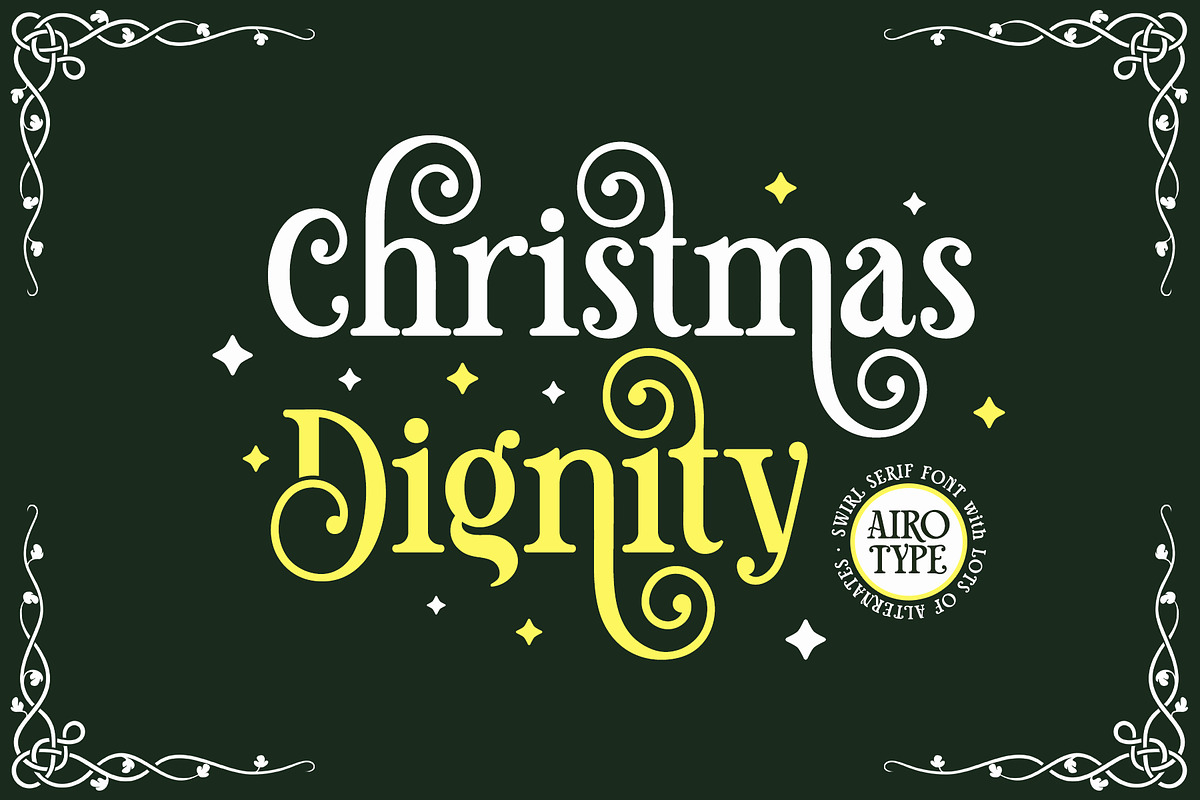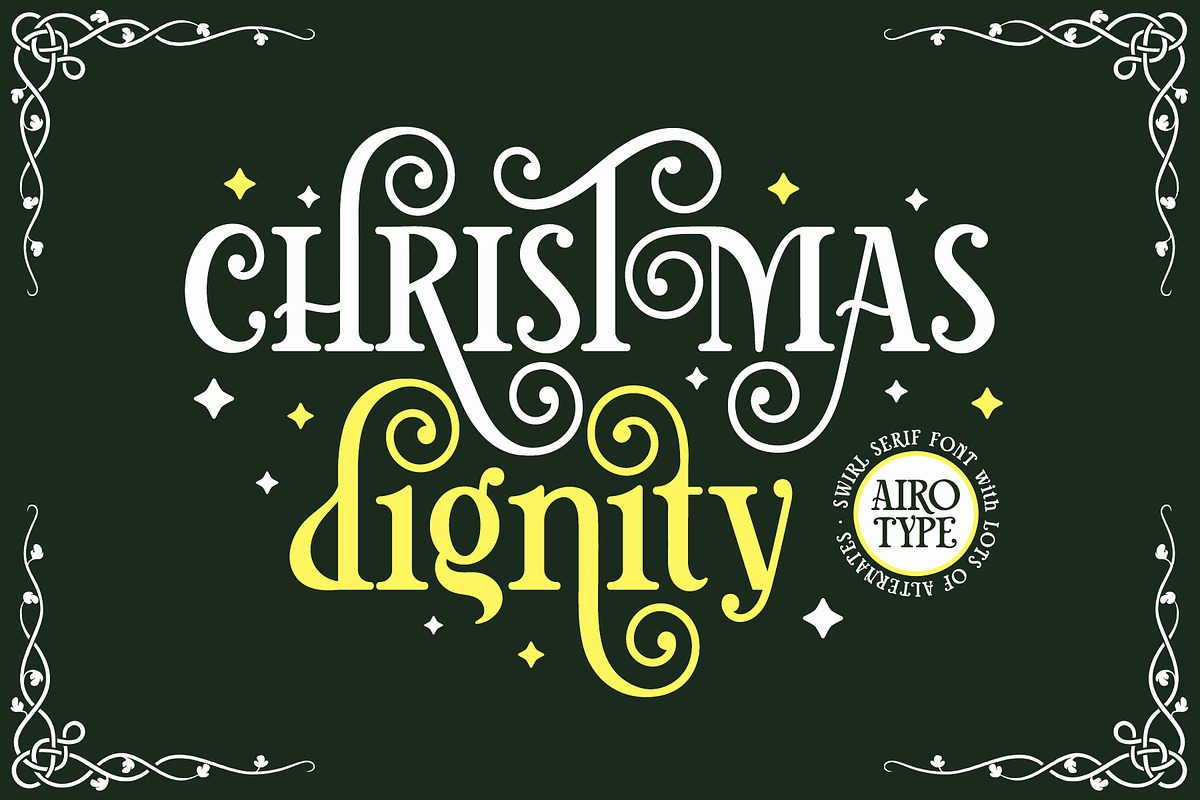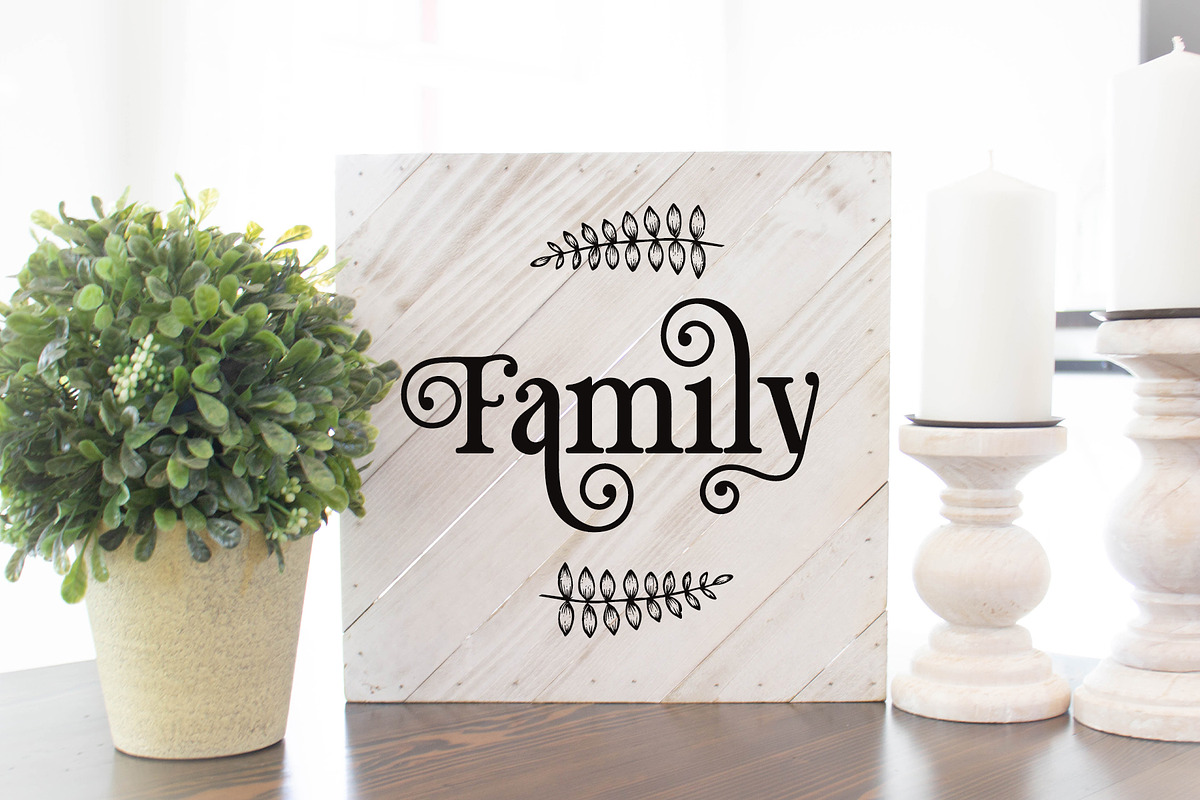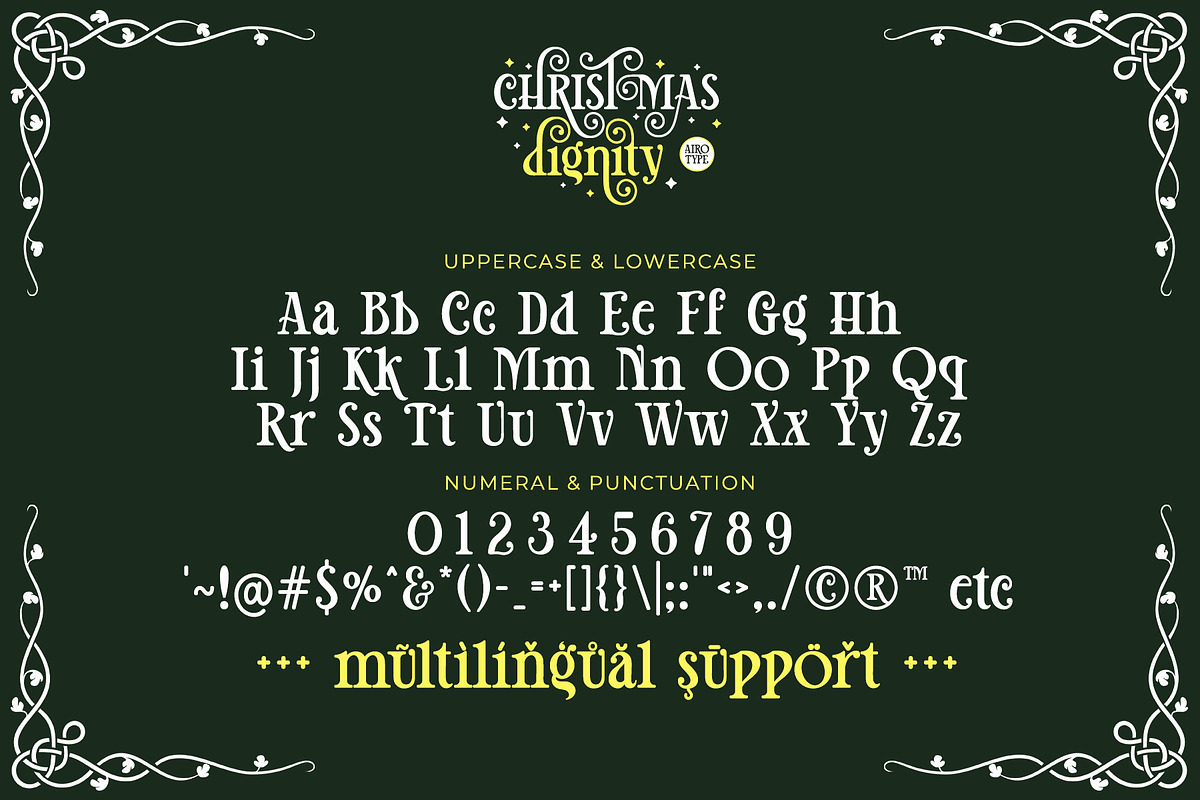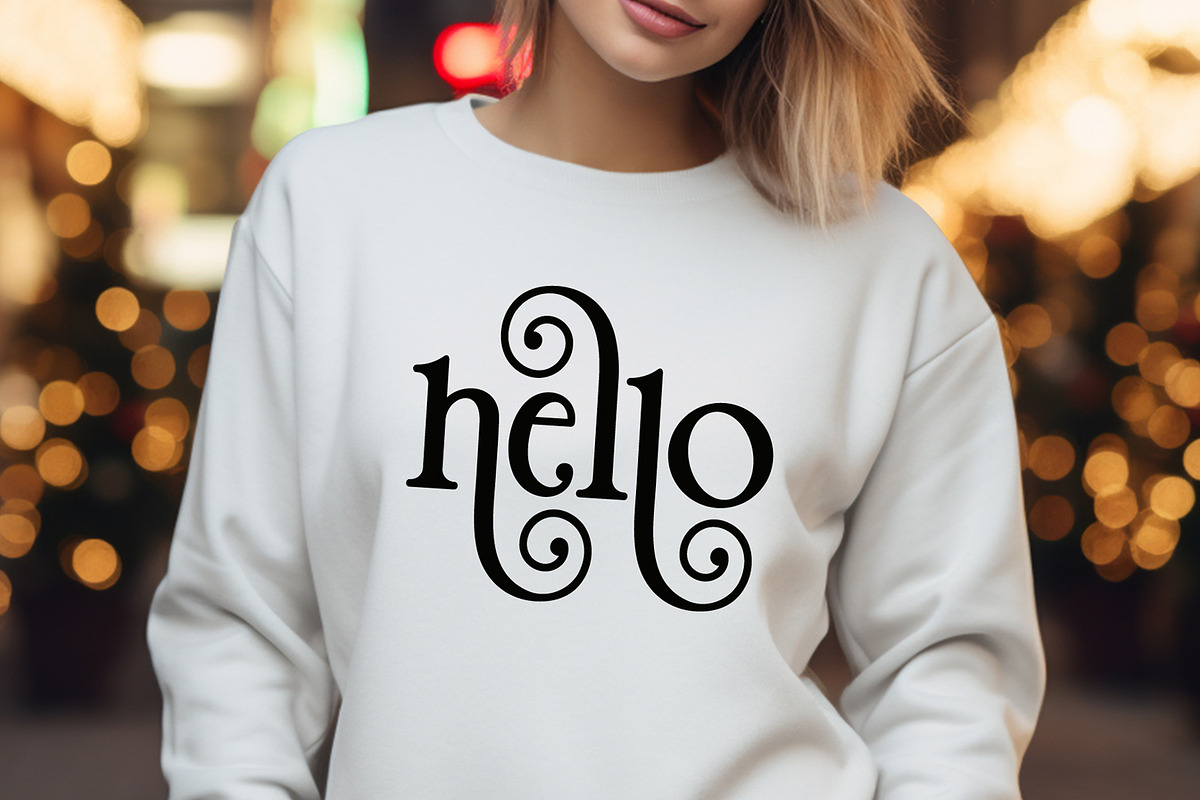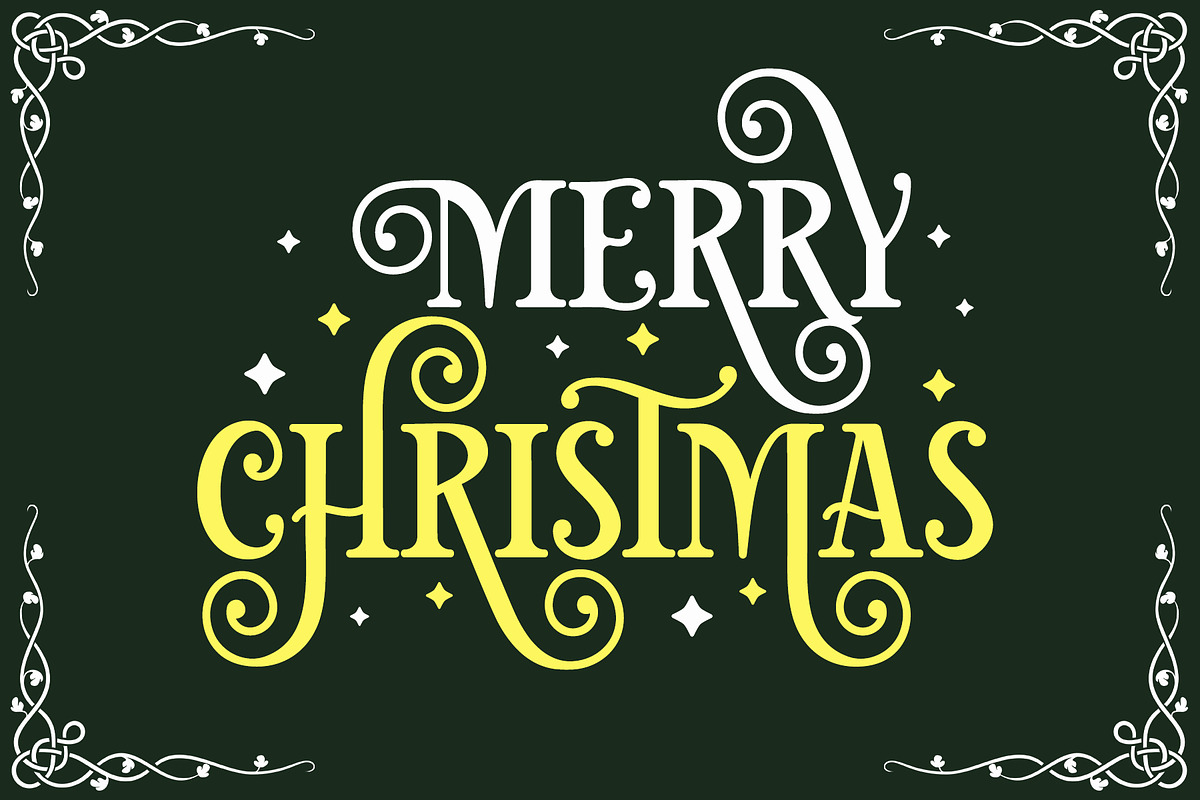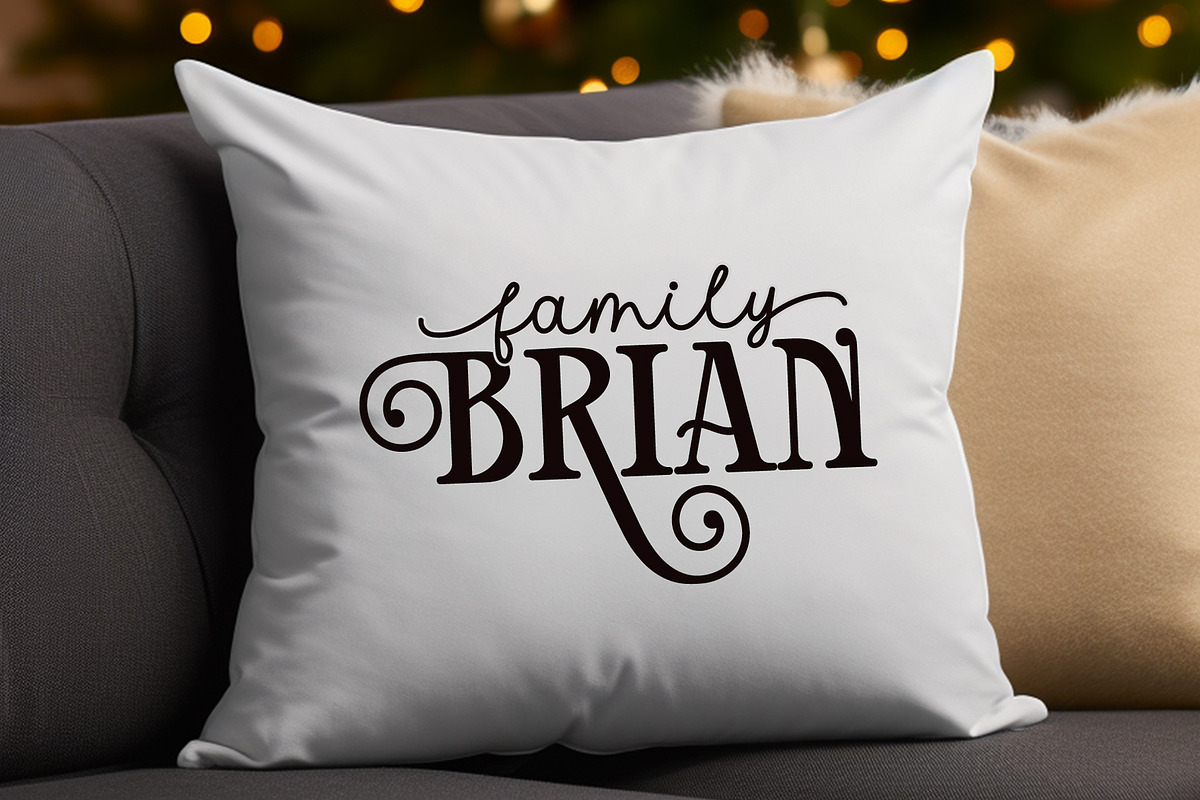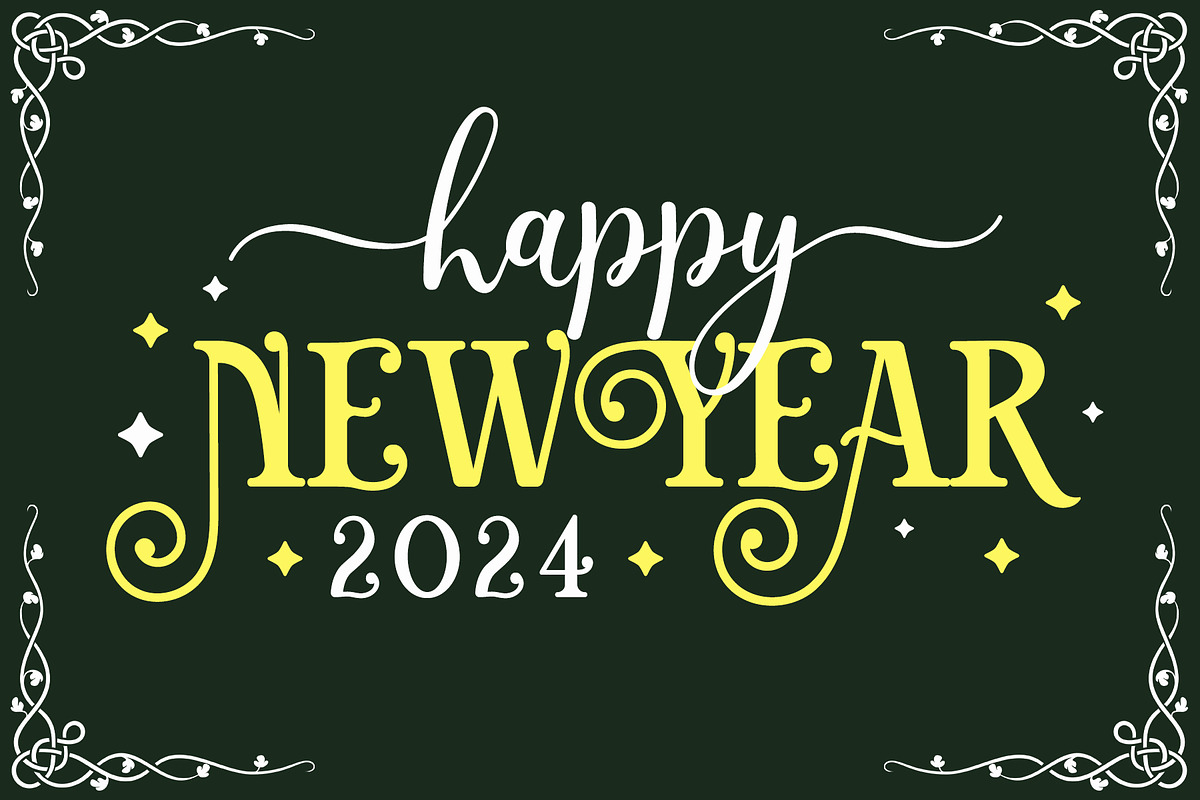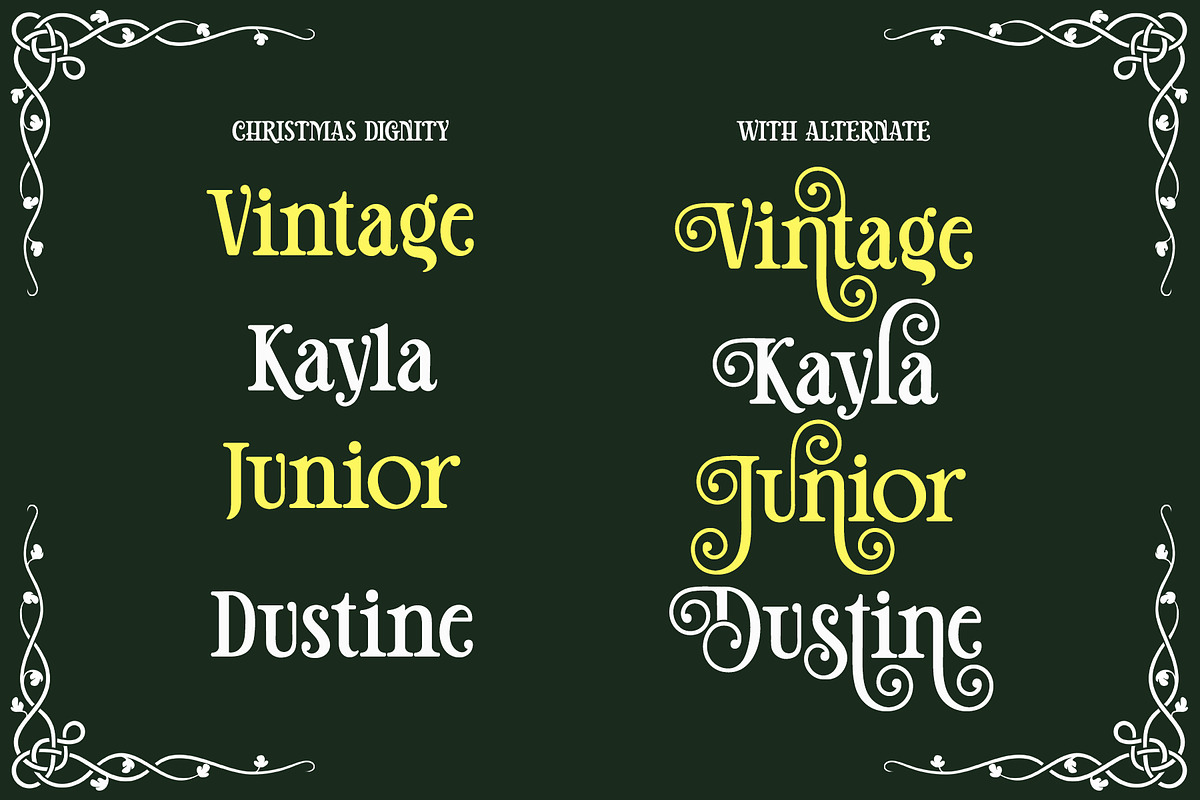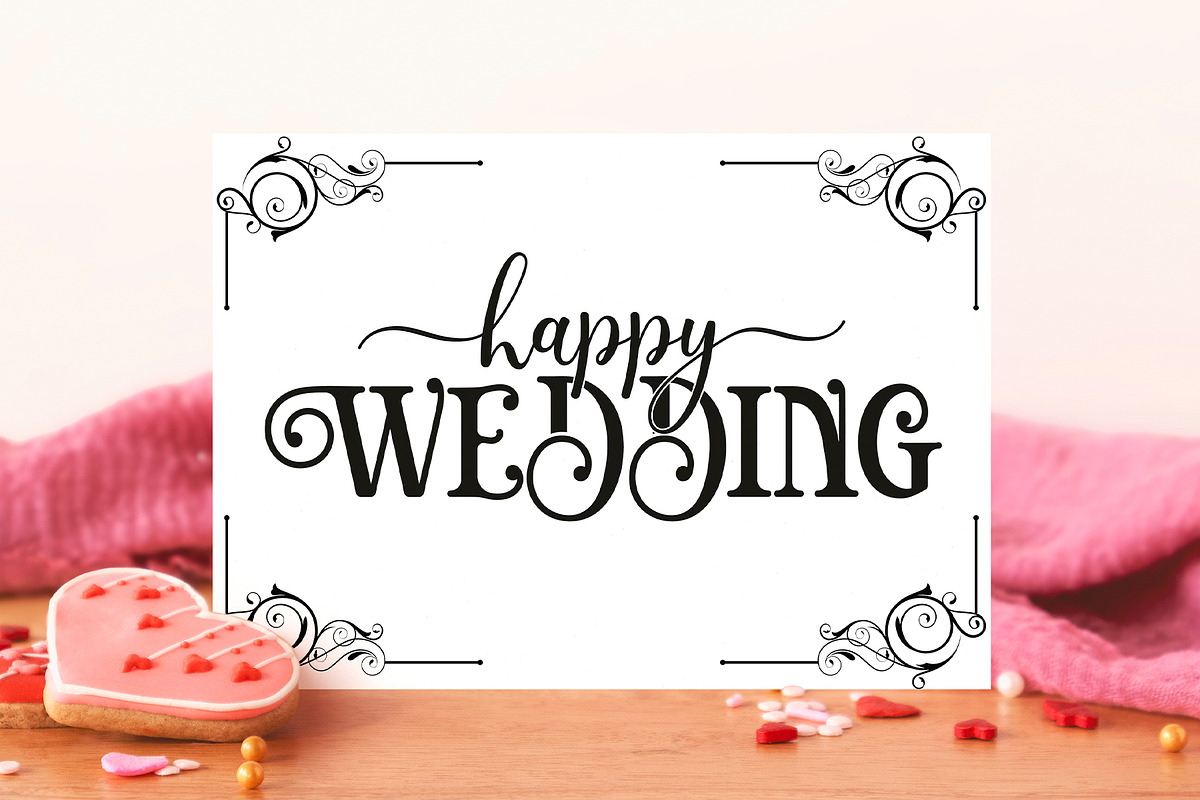
Christmas Dignity - Swirl Serif Font
Christmas Dignity is modern and fancy serif font. It is elegant, swirl, and beautiful.
Christmas Dignity has lots of extra swirl extra glyphs that can be accessed with Font Book (Mac) or Character Map UWP (PC). Make sure you know how to access extra glyphs in the program you are using.
Feel the vibes of modern and elegant and make your design standout with this font.
This font is special for Christmas, but can also be used for wide ranges of design, such as wedding, invitation, quotes, t-shirt, stickers, and many more.
- Uppercase and Lowercase (include extra glyphs)
- Most Multilingual Accent